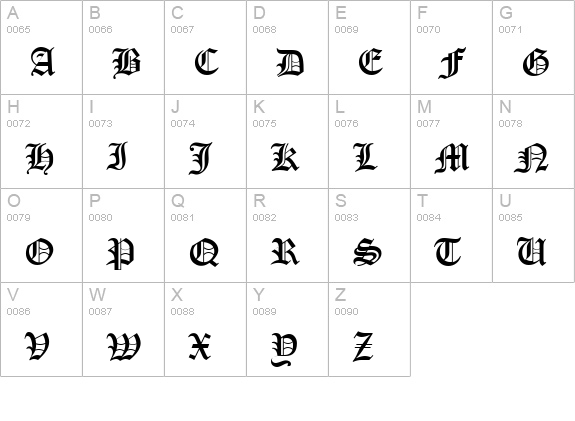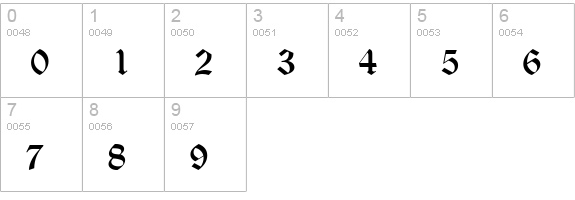
Canterbury Regular is the standard, neutral variant in the Canterbury typeface family \xE2\x80\x94 well suited to general body text, paragraphs, and standard typographic work.
Canterbury Regular is a classic and elegant font that exudes a sense of sophistication and timelessness. Its refined and graceful letterforms make it the perfect choice for a wide range of design projects, from formal invitations to luxurious branding. With its balanced proportions and clean lines, Canterbury Regular adds a touch of elegance and professionalism to any design. Its versatility allows it to be used in both headings and body text, ensuring a cohesive and polished look throughout your project. This font features a wide range of characters, including uppercase and lowercase letters, numbers, punctuation marks, and special symbols. Each character has been meticulously crafted to ensure a harmonious flow and optimal legibility. One of the best things about Canterbury Regular is that it is free to download. You can easily access this stunning font at FontsMarket.com, a reputable website that offers a vast collection of high-quality fonts. Whether you are a professional designer or a hobbyist, you can enjoy the beauty and versatility of Canterbury Regular without any cost. So why wait? Enhance your designs with the timeless appeal of Canterbury Regular. Download it for free at FontsMarket.com and elevate your projects to a whole new level of sophistication and elegance.